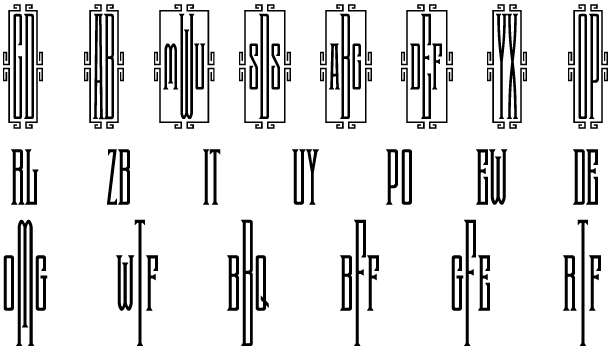
Morningside Monogram
About Morningside Monogram
The inspiration source for Morningside Monogram is the 1934 Book of American Types by American Type Founders. One of their most popular monogram styles in that specimen book was called "Fifth Avenue Monogram Initials", which was only available…